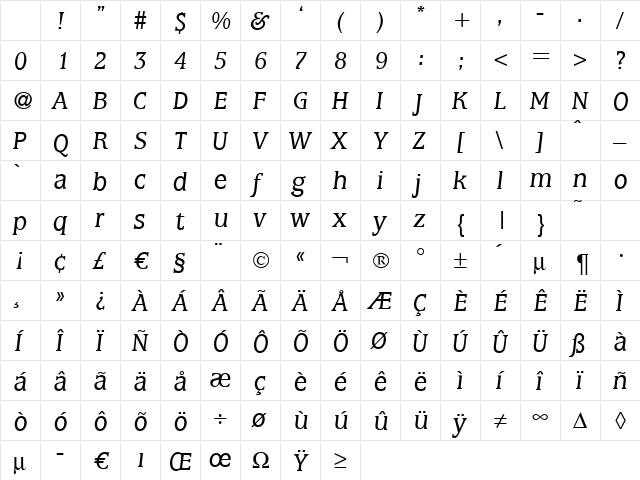
M650-Roman is a composed and adaptable typeface that performs quietly and consistently across a wide range of design contexts. The slanted form adds forward momentum and visual energy.